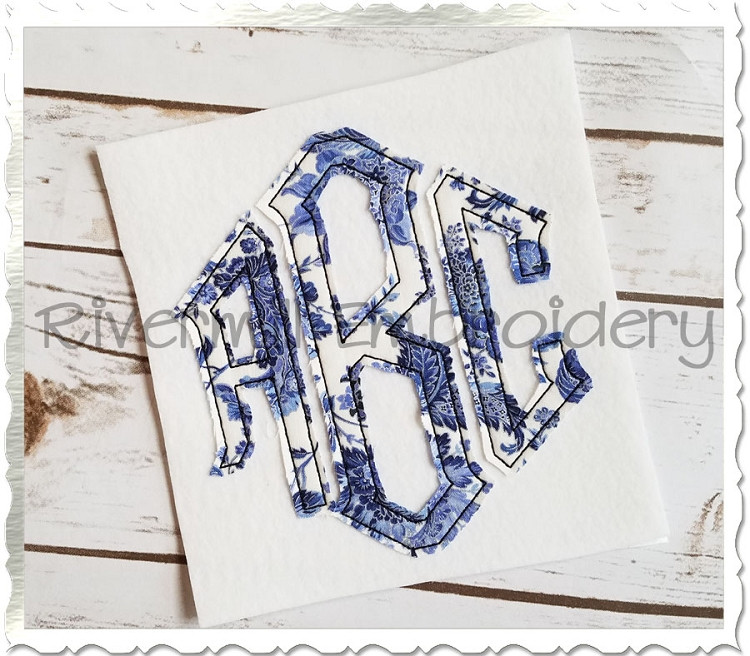
Raggy Point Monogram Applique Machine Embroidery Alphabet Font
You get 4 sizes of upper case letters for the Right, Center, and Left side that form a diamond shape when put together. The sizes are based off of the center letter - 4x4 sized (about 3.8" tall), 5", 6", and 7".
All the letters are raggy applique. For each letter there is a placement line and the tack down stitch is a bean stitch (triple stitch). There are no satin stitches on this set. 312 files total.